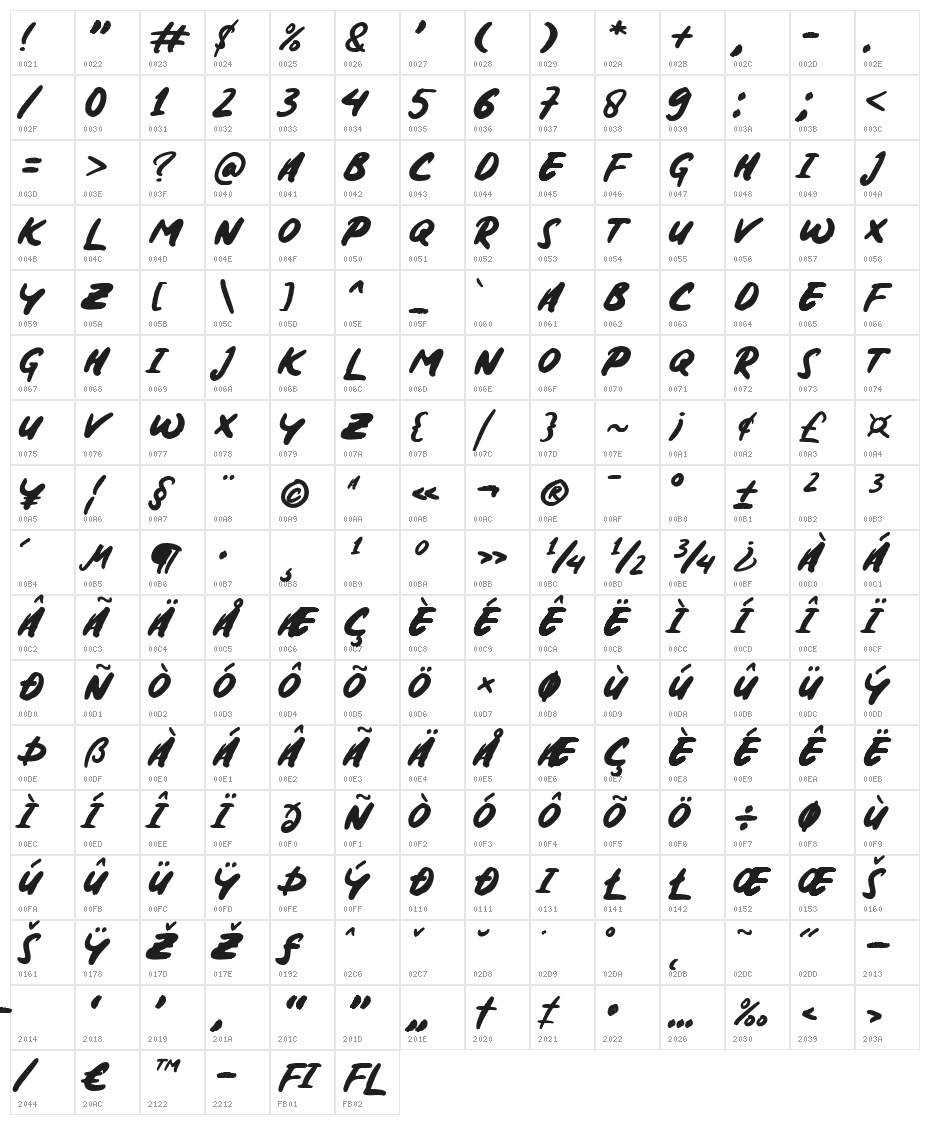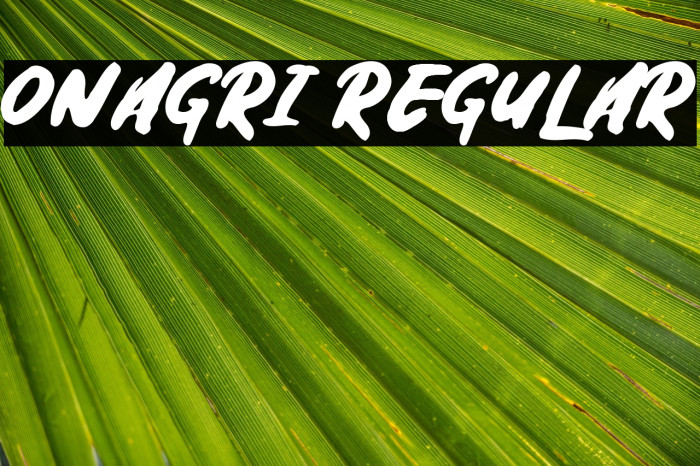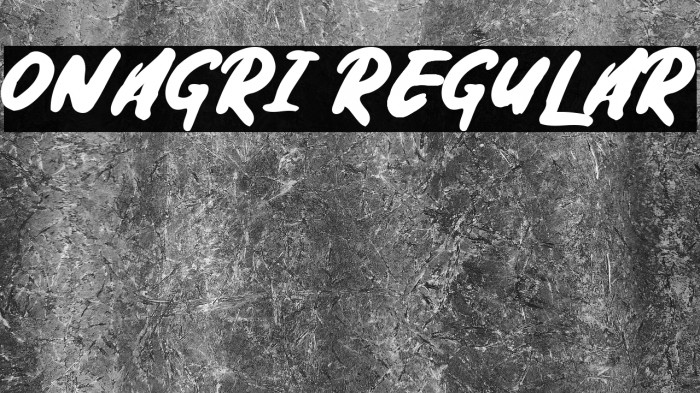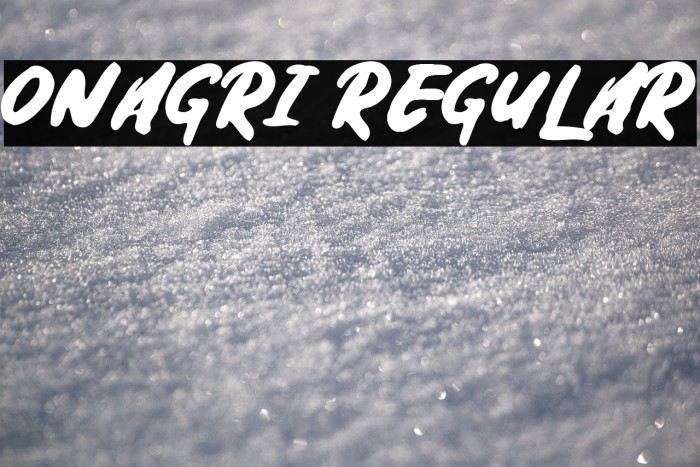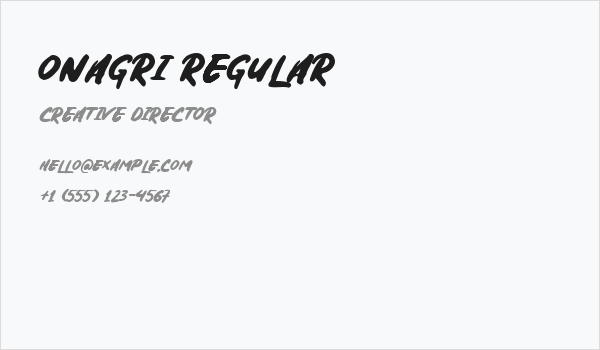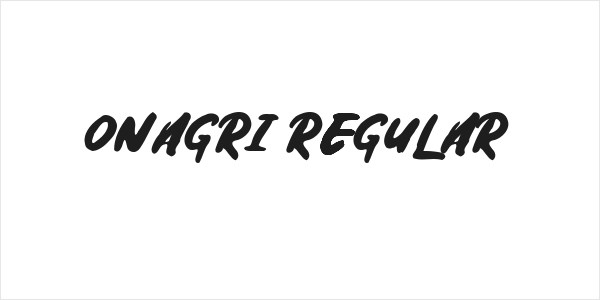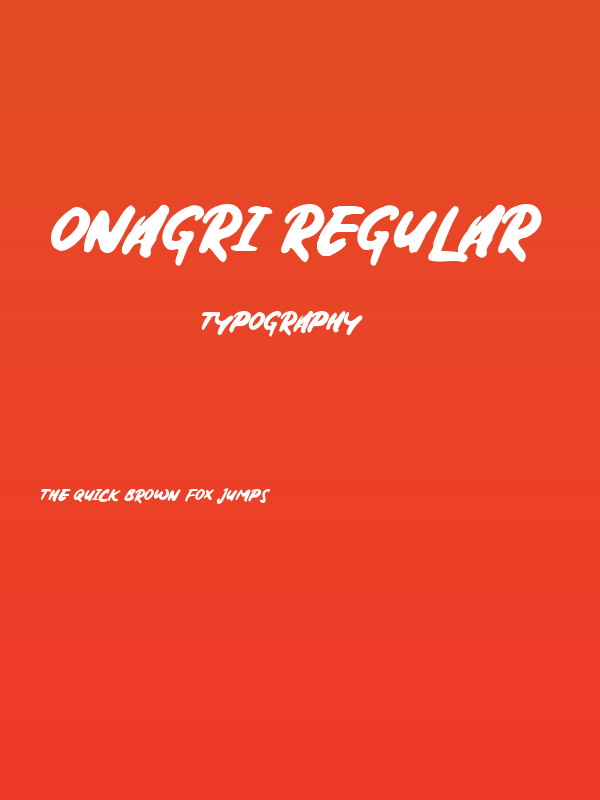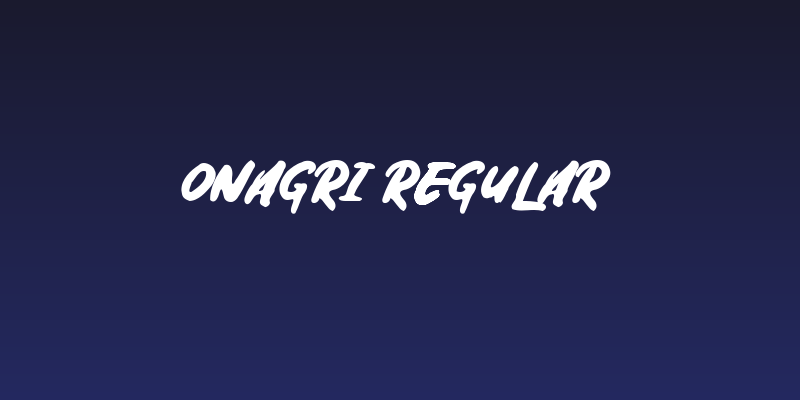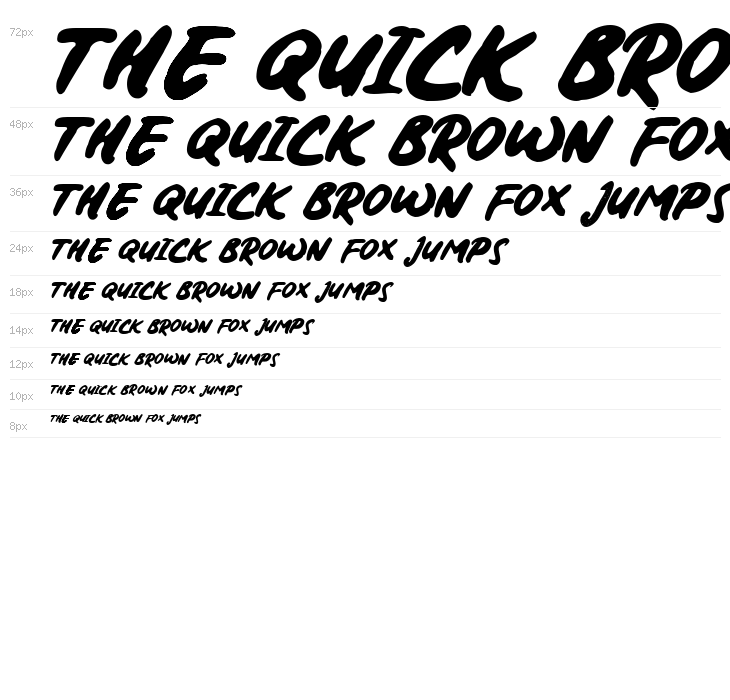
Onagri Regular Font
Onagri Regular Description
This font exudes a bold and dynamic handwritten style, characterized by its thick, expressive strokes and fluid, cursive-like forms. The letters are slightly slanted, giving a sense of motion and energy. The uppercase and lowercase letters maintain a consistent style, with rounded edges and a playful, informal appearance. The numbers and special characters follow the same aesthetic, ensuring a cohesive look across all elements. This font's boldness and unique style make it stand out, perfect for projects that require a personal touch or a creative flair.
| Proposed Projects | Ideal for branding, posters, greeting cards, and creative projects that need a personal touch. |